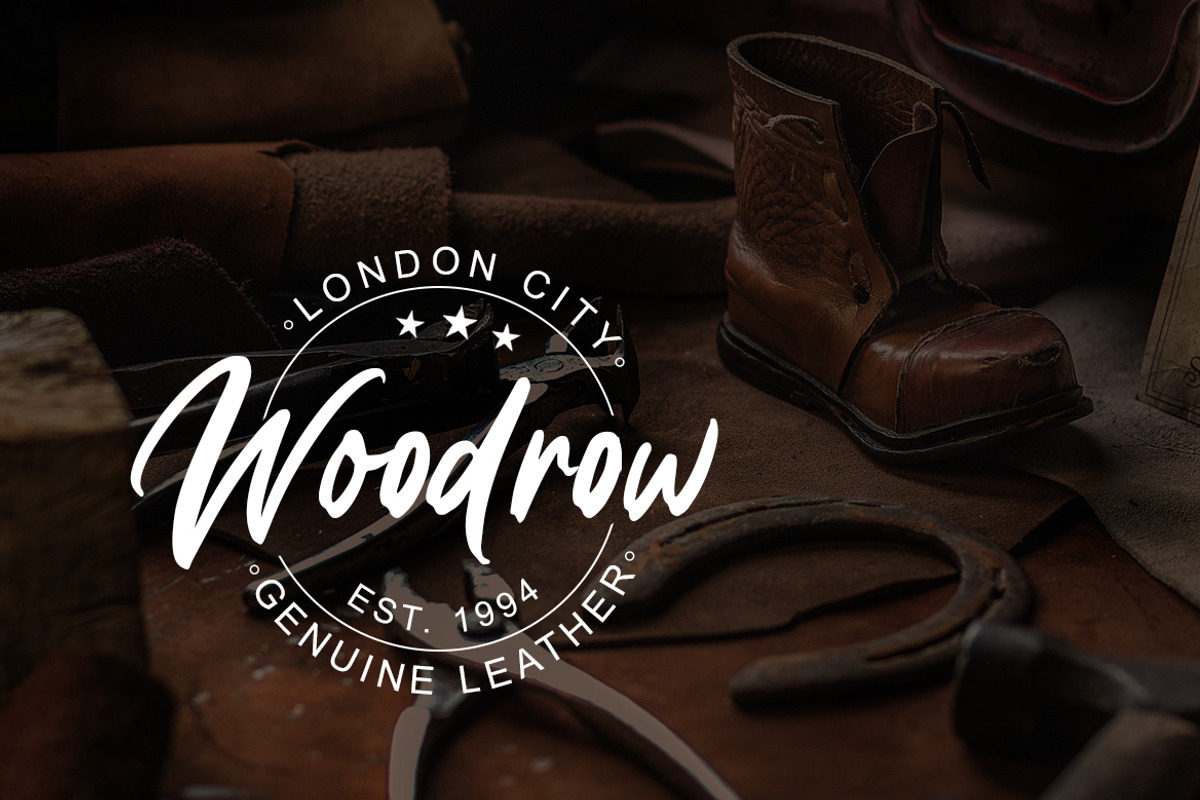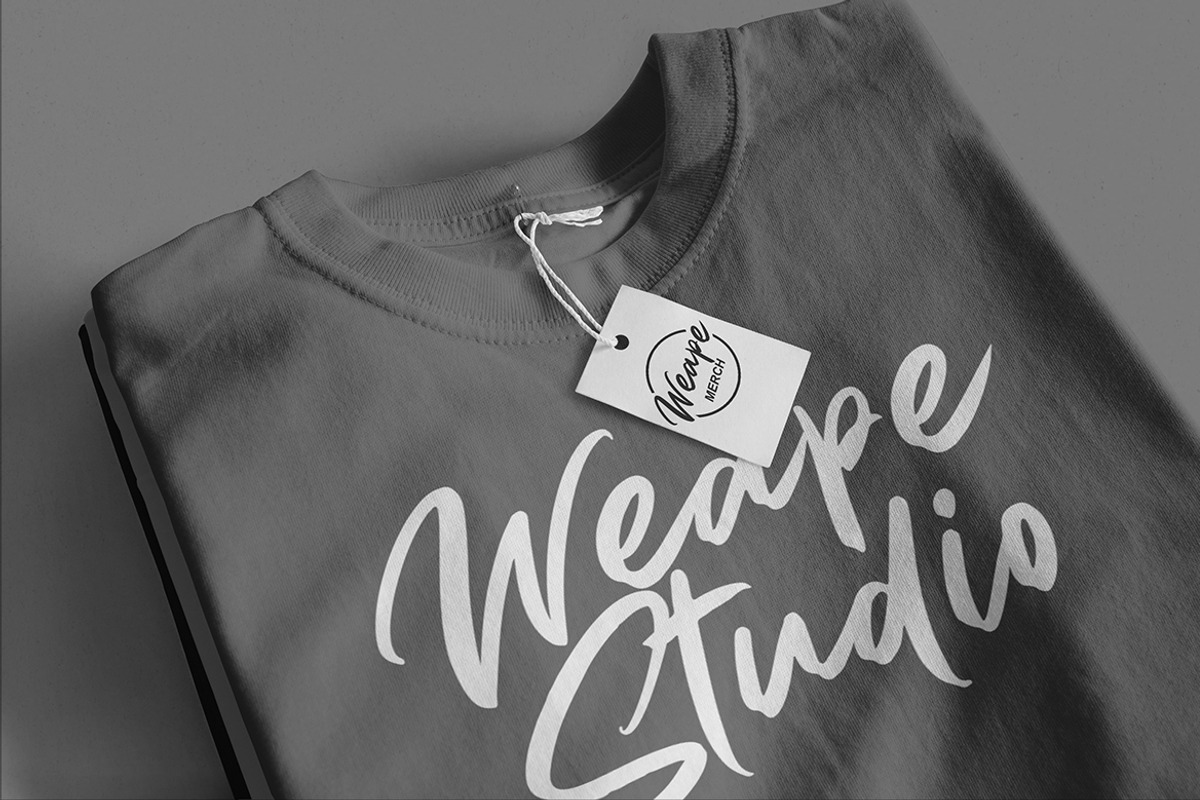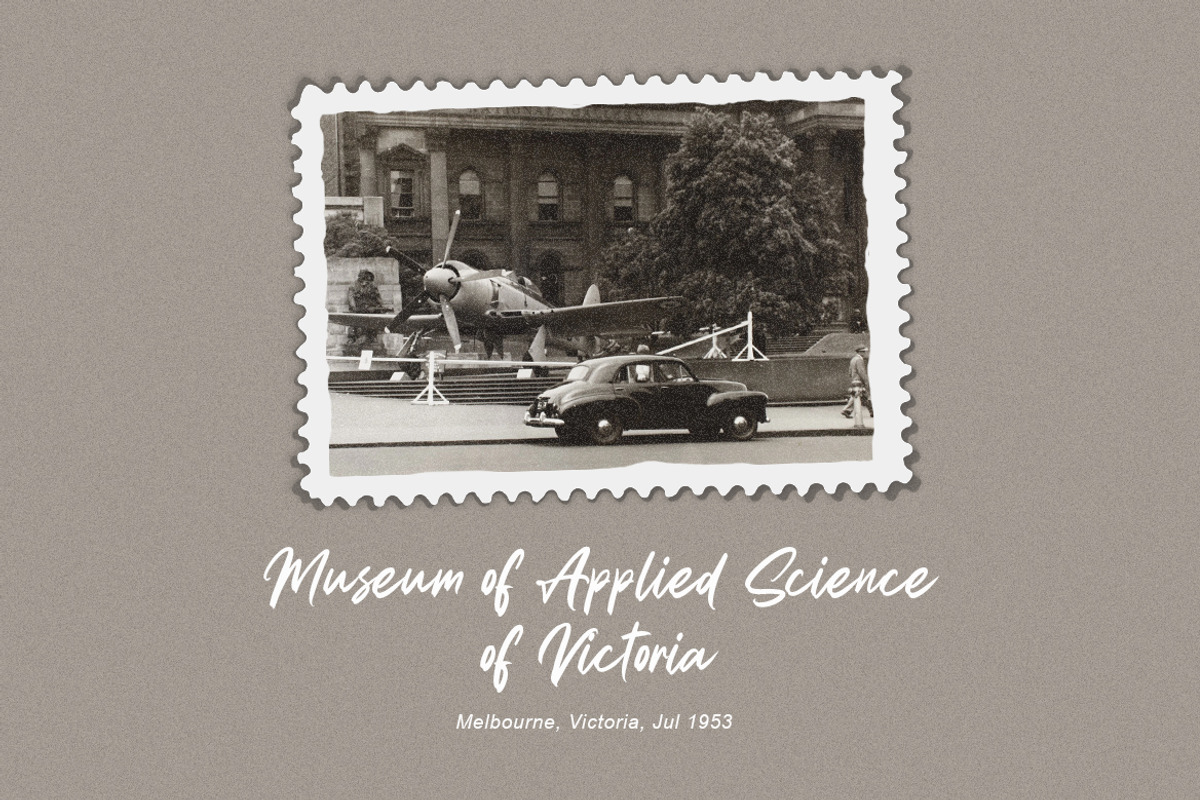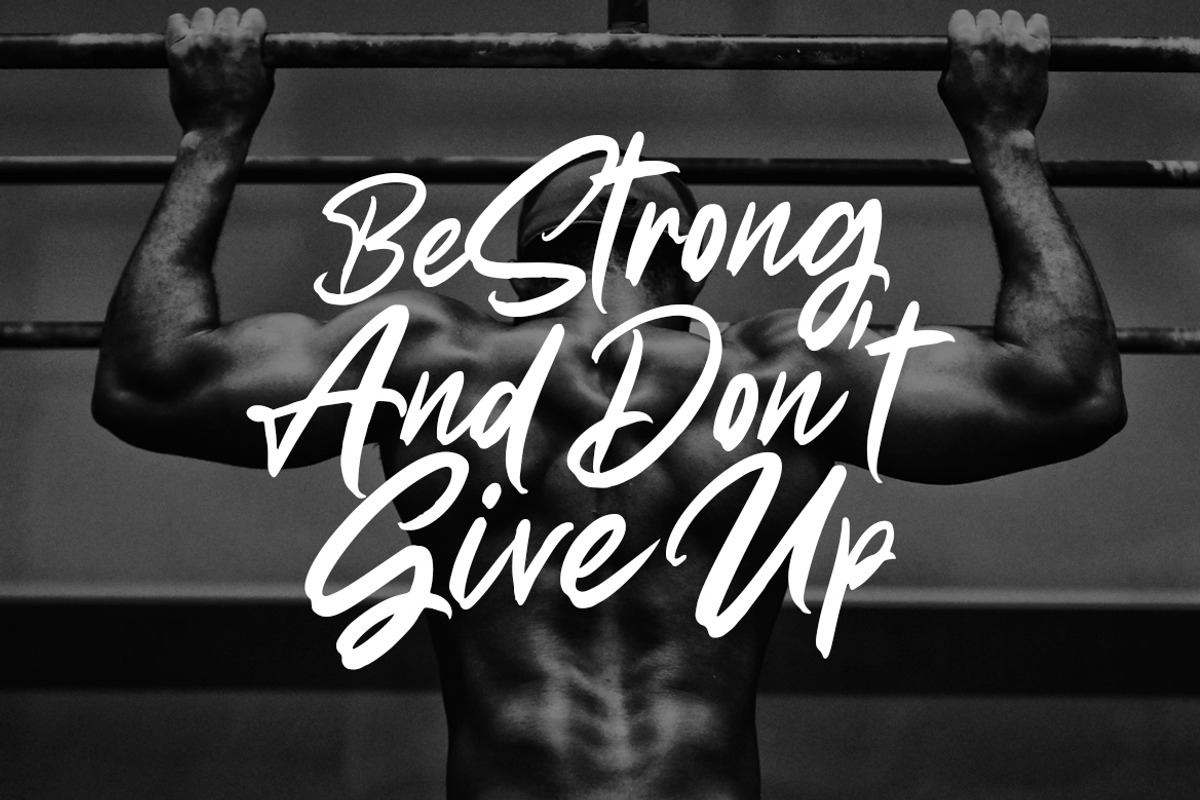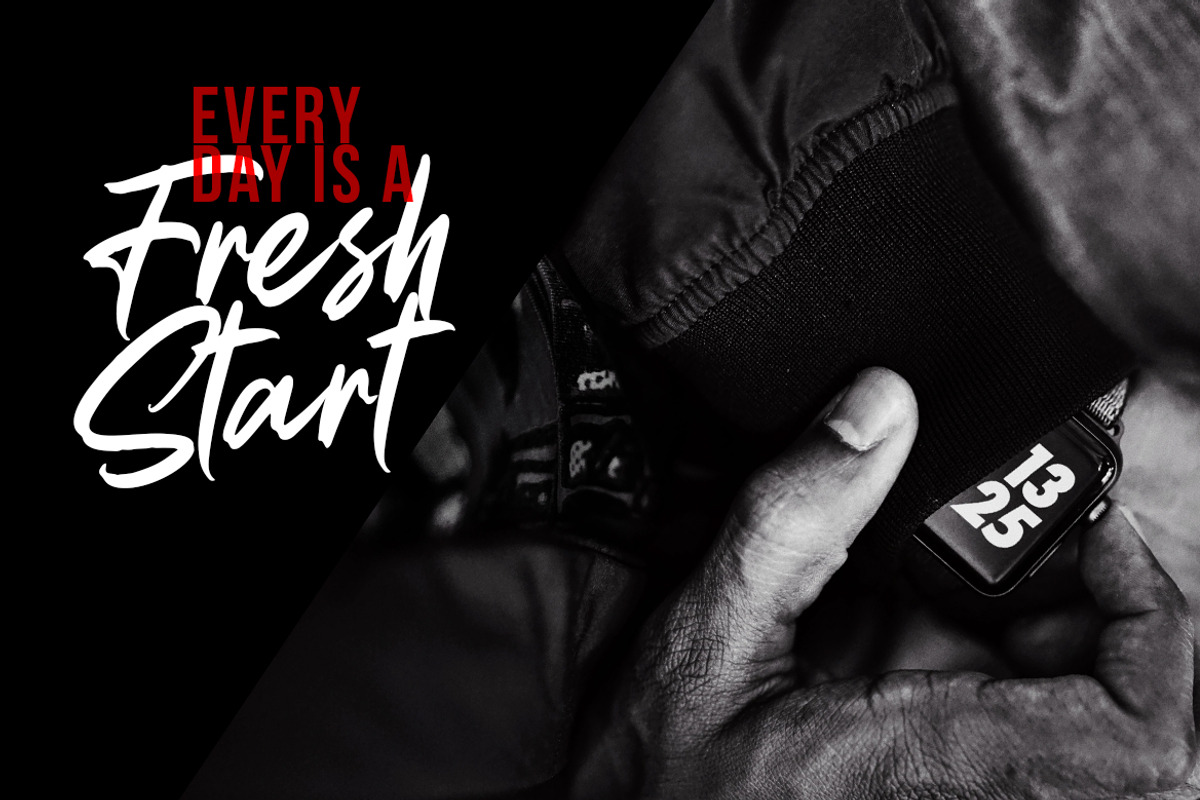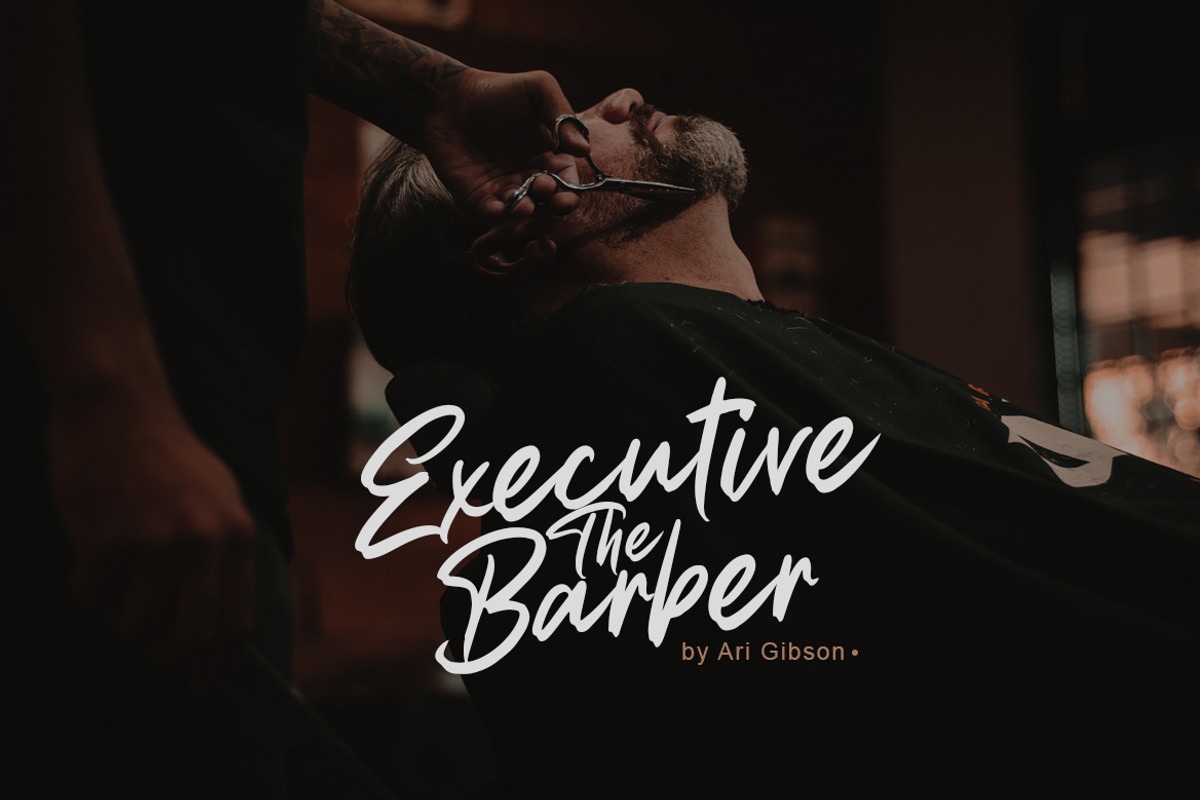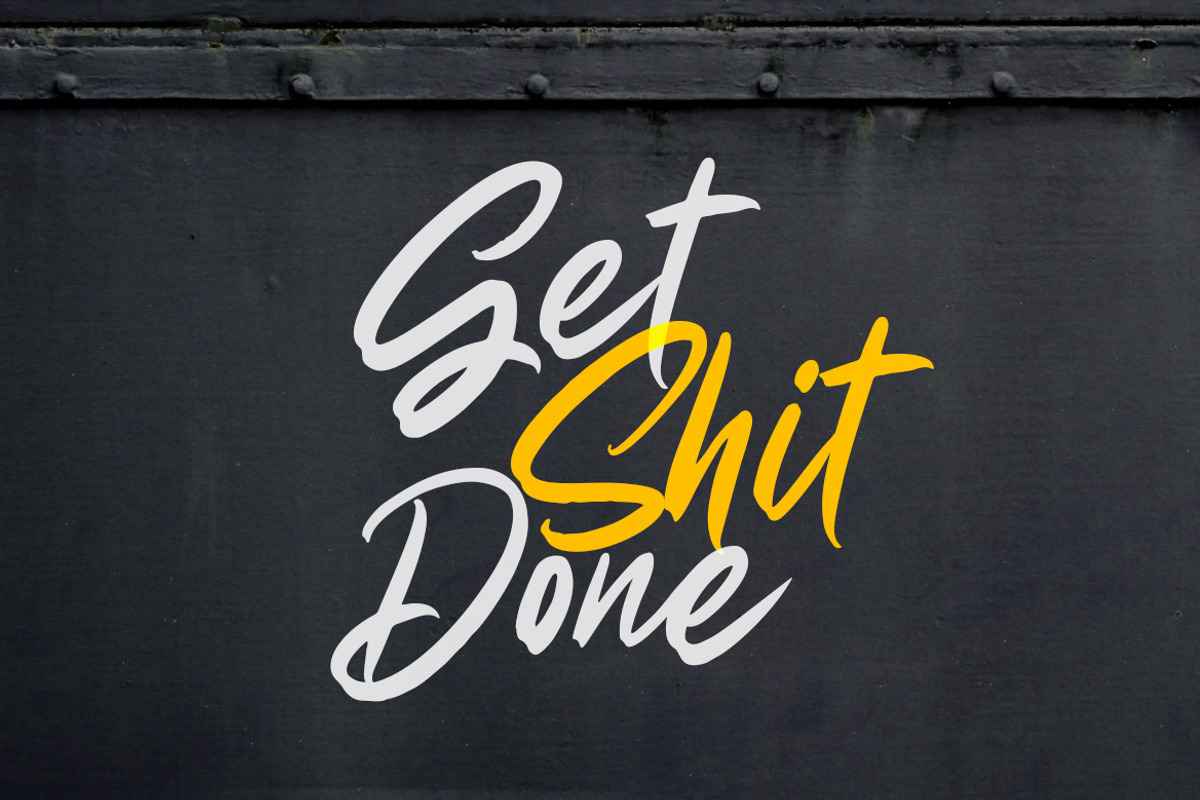
Gastpoll - Handwritten Font
Introducing Gastpoll Handwritten Font, with the natural stroke of hand quick. You can use and enjoy Gastpoll, for promotional material and anything.
And this font perfect for signature logo, handwritten quotes, product packaging, fashion magazine, photography, merchandise, branding projects, poster, social media post, book cover, flyer, and advertising. You can create easily and make it as if you wrote it yourself.
All fonts containing upper & lowercase characters, numerals, ligatures and a large range of punctuation.